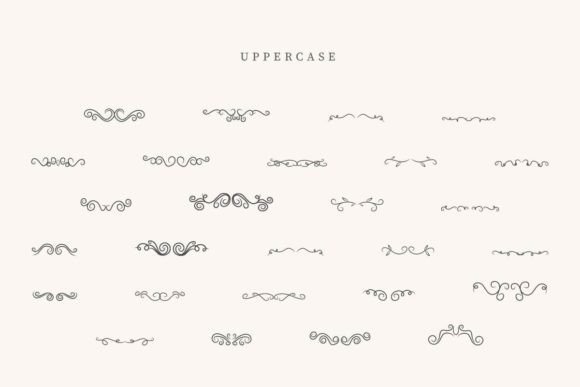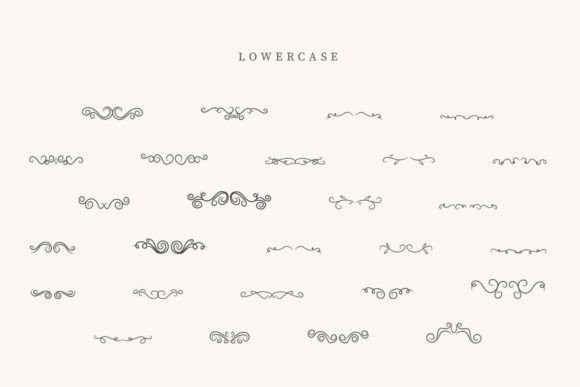
Introduction to Procreate Divider Font
Remember that moment when you finally decided to take the leap and turn your creative idea into reality? For many of us, it’s the spark that sets our imagination ablaze. Whether you’re a seasoned designer or a hobbyist, having the right tools can make all the difference. That’s where the Procreate Divider Font comes in – a game-changing design resource that brings an artistic twist to your creative projects.
With its inventive glyph illustrations and high-quality design, the Procreate Divider Font is a must-have for any creative endeavor. Whether you’re crafting, journaling, or designing invitations, this versatile font adds a touch of whimsy and charisma to your work. And the best part? It’s available for free download, complete with a transparent background, making it easy to integrate into your high-quality designs.
As a valuable resource for designers, the Procreate Divider Font offers endless possibilities for creative expression. From adding a unique spin to your wardrobe designs to bringing your journal pages to life, this font is the perfect companion for any project. So why wait? Dive into the world of creative possibilities with the Procreate Divider Font and watch your imagination soar.
Key Features of Procreate Divider Font
- High-quality design resource with a transparent background, ideal for creative projects.
- Unique, customizable design elements that can be easily edited and modified to fit individual style.
- Perfect for use in graphic design, digital art, and other creative applications where a clean, minimalist aesthetic is desired.
- Includes a range of divider styles, from simple lines to more complex designs, to add visual interest to any creative project.
Honest Review: Procreate Divider Font
As a designer, I’m always on the lookout for high-quality design resources that can elevate my creative projects. Recently, I came across the Procreate Divider Font, and I’m excited to share my honest review with you.
What works well: ✨ The font is super easy to use, and its transparent background makes it perfect for creating clean and minimalist designs. The font is also highly customizable, allowing me to adjust its size, color, and opacity to fit my design needs.
- Perfect for creating clear hierarchies and separating content in your design
- Can be easily edited to fit your design style
Limitations: ⚠️ While the font is generally high-quality, I found that it can be a bit glitchy when used in conjunction with other Procreate features. Additionally, the font’s customization options are limited to size, color, and opacity, which may not be enough for more complex designs.
Overall impression: The Procreate Divider Font is a solid addition to any designer’s toolkit. While it may have some limitations, its ease of use, high quality, and free download make it a great resource for any creative project.
Procreate Divider Font
Designing with Procreate Divider Font
The Procreate Divider Font is a versatile and free design resource that can elevate your creative project. This high-quality font is perfect for adding a touch of sophistication to your designs.
Getting the Most Out of Procreate Divider Font
To get the most out of this font, use it on a transparent background to create a clean and modern look. You can also experiment with different font sizes, colors, and combinations to find the perfect fit for your design.
The Procreate Divider Font is perfect for:
- Creating a logo or branding identity
- Designing a website or app interface
- Adding a touch of sophistication to your social media graphics
Can I use the Procreate Divider Font on a transparent background?
Yes, the Procreate Divider Font is designed to be used on a transparent background, making it perfect for creating seamless and visually appealing design elements. When using the font on a transparent background, make sure to set the fill color to “None” or “Transparent” in your design software to achieve the desired effect.